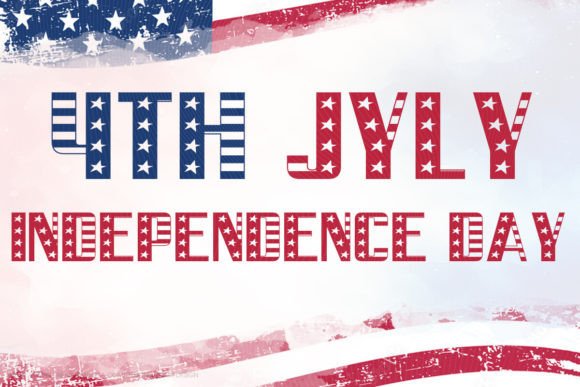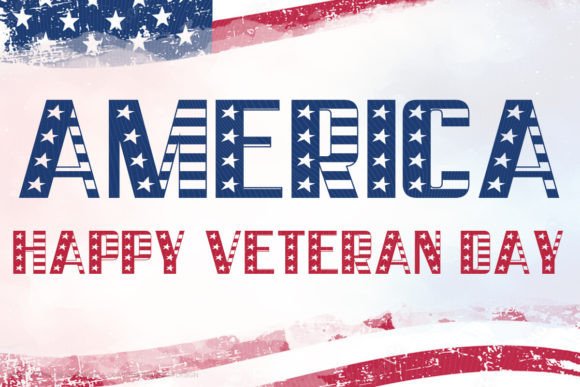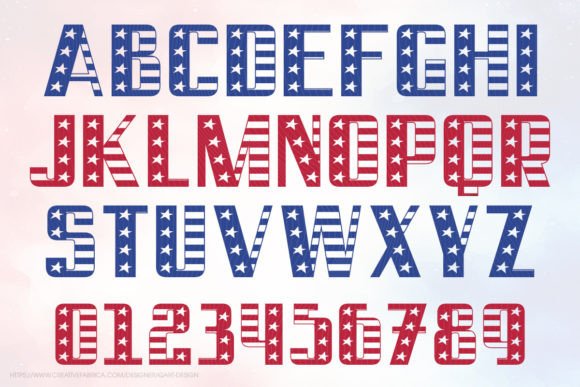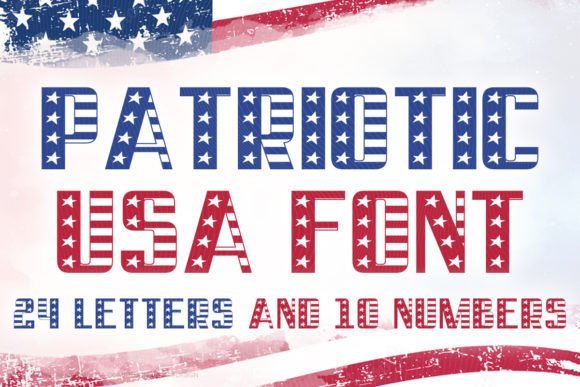
Introduction to Patriotic Usa Font
Patriotic USA Flag American Nation font features an American flag motif.
This decorative font is perfect for projects that celebrate American culture, history, or events such as Independence Day 4th July, Veterans Day 11st November, or Memorial Day the last Monday of May It can be used to create impactful headlines, banners, or signage, infusing a sense of national pride and identity into any design.